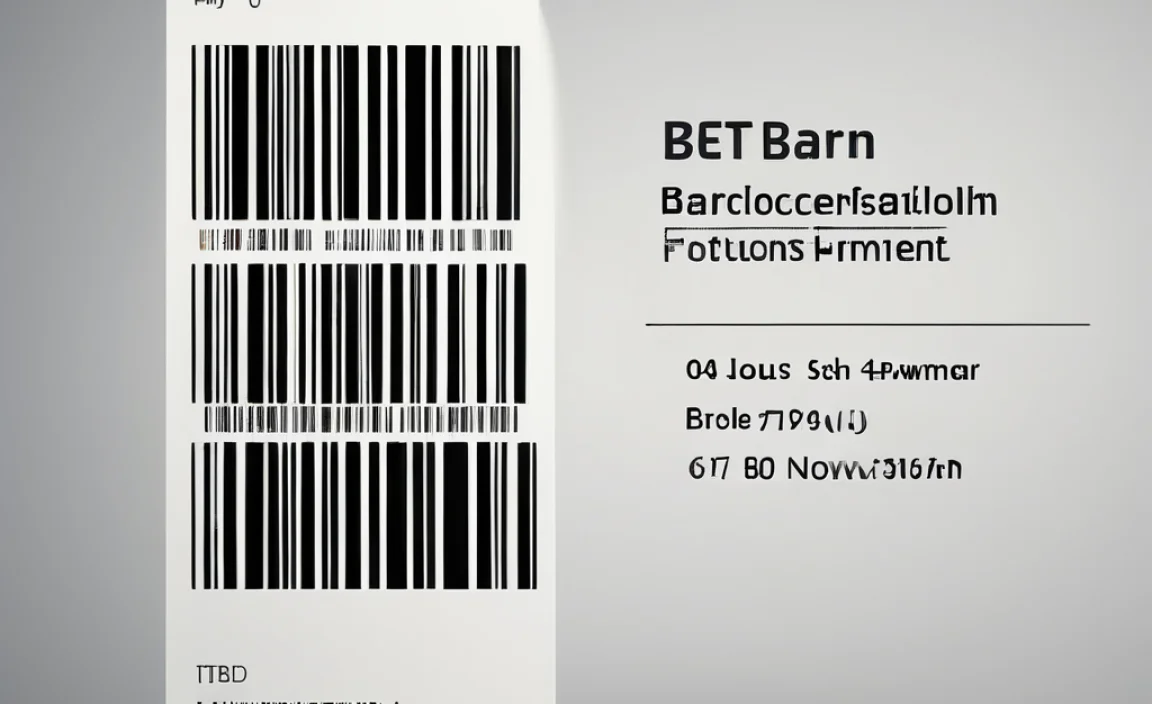
Have you ever wondered how stores keep track of their products? One way is through barcodes. Barcodes use lines and numbers to label items. But have you thought about the best barcode number font? This font helps machines read barcodes better.
Choosing the right barcode font is important. It makes sure the scanner reads the code correctly. Let’s explore why the best barcode number font is key for businesses.
Key Takeaways
- The right barcode font improves scanning accuracy.
- Many fonts exist, but some stand out more.
- A best barcode number font ensures fast data entry.
- Fonts like Code 128 are popular in stores.
- Choosing the best font saves time and money.
Understanding Barcode Fonts
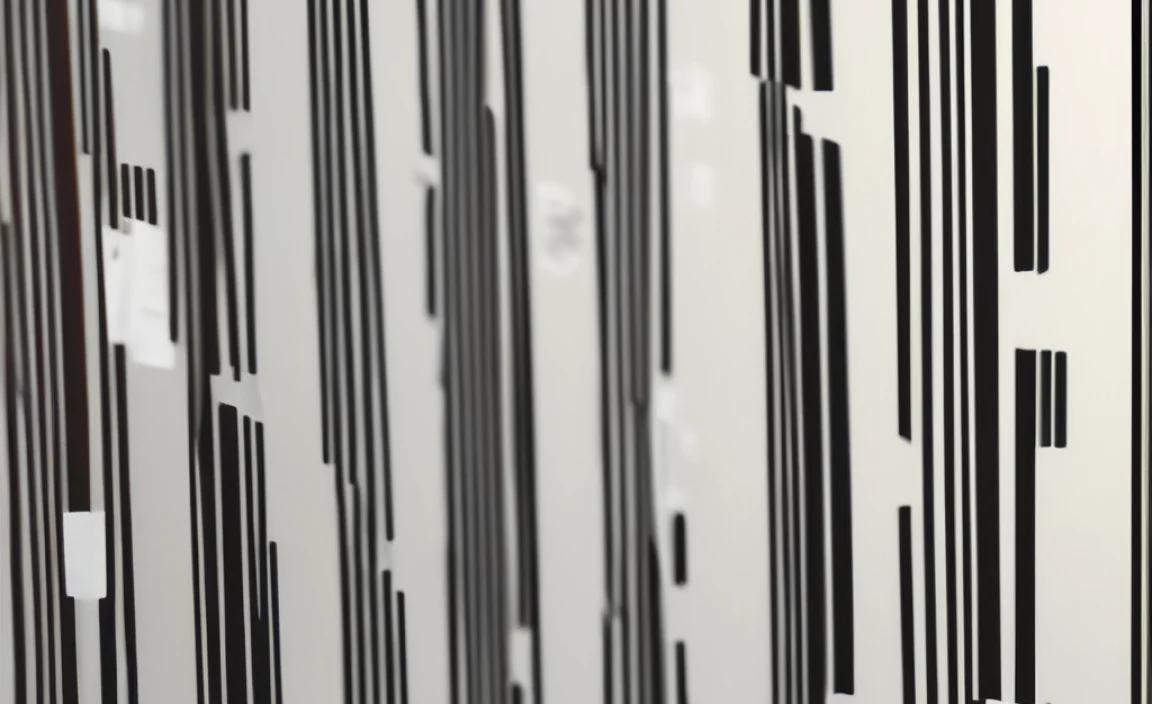
Barcodes are everywhere. They use special fonts that machines can read. These fonts look like a series of lines. Each line represents a number or letter. Picking the right font is crucial for accurate reading. If a barcode is unreadable, it can cause problems. For businesses, getting the best barcode number font is important. It ensures smooth operations. Barcodes need to be clear and legible.
- Barcodes use special fonts for machine reading.
- Fonts translate lines into numbers or letters.
- Clarity in fonts is crucial for accuracy.
- Unreadable barcodes cause business issues.
- Best fonts ensure smooth business operations.
Choosing the right barcode font helps avoid errors. It can also speed up the checkout process. When a scanner reads a barcode quickly, customers are happier. By using the best barcode number font, businesses can improve efficiency. This ultimately leads to better service for everyone involved.
Popular Barcode Fonts
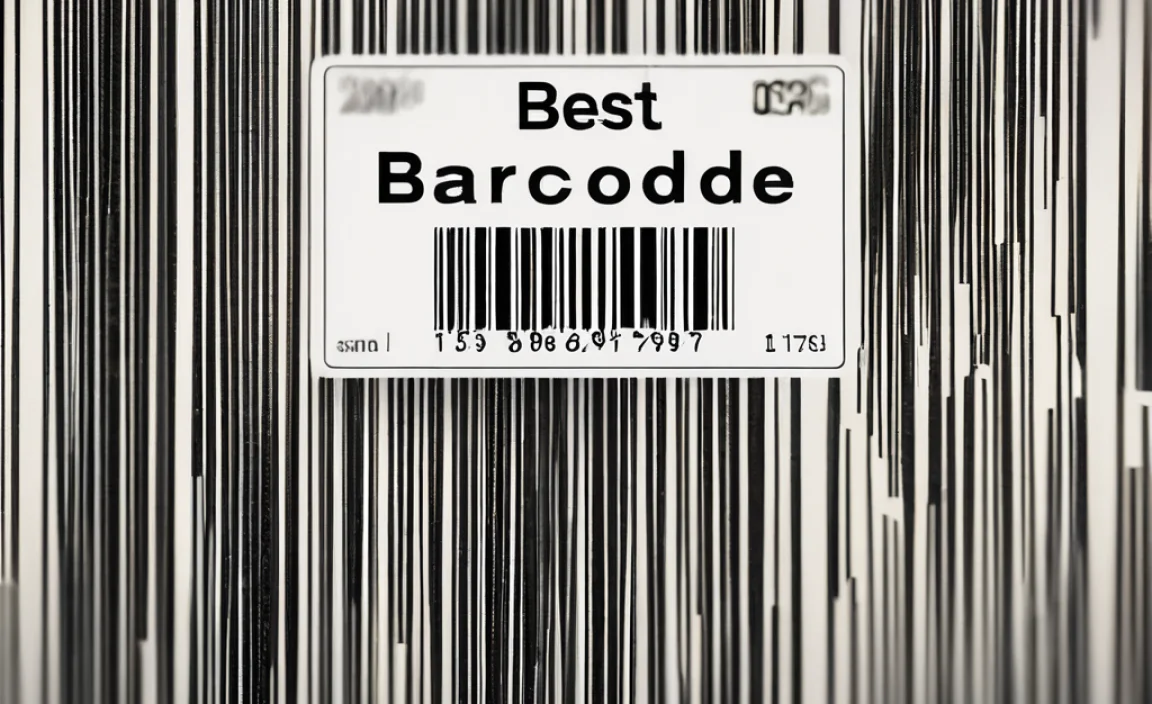
Barcode fonts come in many styles. Each style has its own use. Some are best for small items like candy. Others are for bigger items like books. A popular choice is Code 128. It’s used in many stores. This font is easy for machines to read. Another option is UPC-A, often found on groceries. Choosing the best barcode number font depends on the product and need.
- Barcode fonts vary by style and use.
- Code 128 is popular for versatility.
- UPC-A is common on grocery items.
- Fonts are chosen based on product size.
- Right font enhances readability.
For businesses, selecting the right font makes a huge difference. It ensures that their products are scanned correctly. This can prevent errors at the checkout. Using a best barcode number font like Code 128 could be the perfect choice for many items. It is also widely recognized and trusted in the industry.
Code 128: The Versatile Font
Why is Code 128 so popular? This font can encode all kinds of data. From numbers to letters, it handles everything. Imagine a store with many different items. Code 128 can label everything easily. Whether it’s a book or a bag of chips, this font works well. Its versatility makes it a top choice for many businesses.
UPC-A: A Grocery Store Favorite
Have you ever looked at a food package’s barcode? That’s likely a UPC-A font. This font is designed for smaller items. It helps in tracking groceries easily. UPC-A is compact but powerful. It’s the go-to choice for supermarkets. It helps manage inventory efficiently. Next time you shop, peek at the barcode on your cereal box!
Code 39: For Larger Products
Code 39 is another great barcode font. It’s perfect for larger items. Imagine a furniture store. They have big items that need tracking. Code 39 can label these items effectively. It supports both numbers and letters. This makes it a flexible choice. Businesses dealing with large products often choose Code 39.
Why Choosing The Right Font Matters
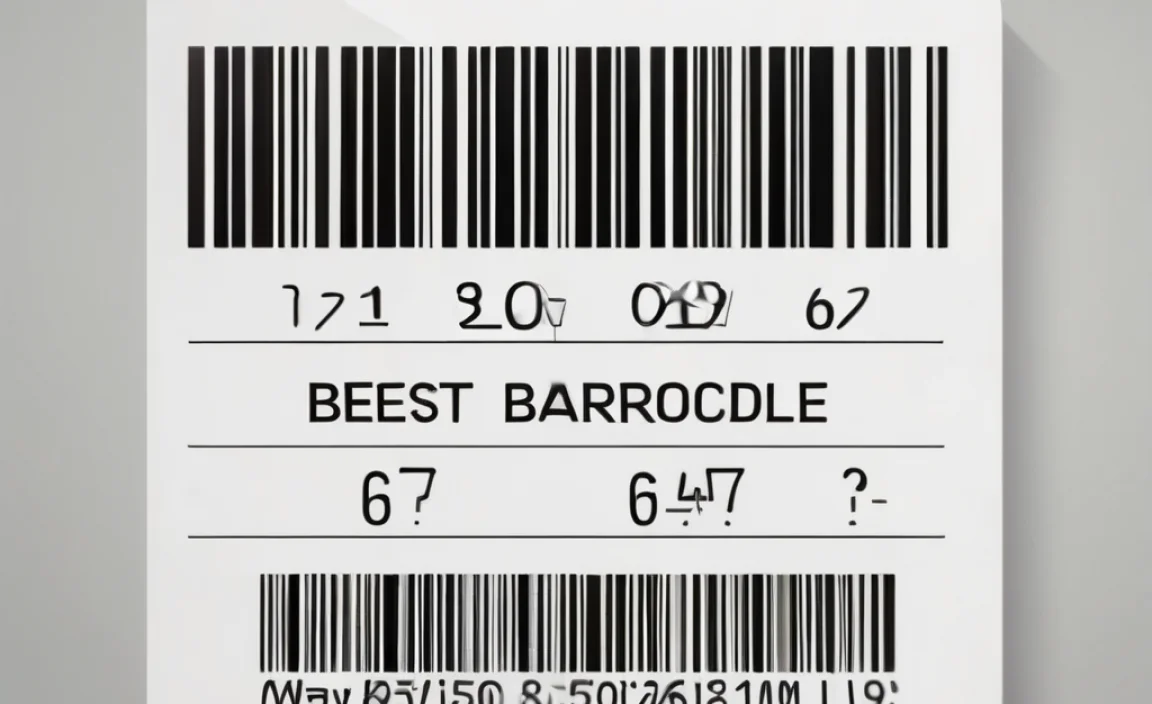
Picking the right font is more than just looks. It affects the whole business process. A well-chosen font reduces errors. It also speeds up the checkout line. Imagine a store with slow scanners. Customers would get frustrated. By using the best barcode number font, stores can avoid these issues. A fast, accurate scanner keeps everyone happy.
- Right font affects business efficiency.
- Well-chosen fonts reduce scanning errors.
- Fast fonts speed up checkout lines.
- Accurate fonts improve customer experience.
- Choosing wisely avoids business problems.
Investing in a good barcode font can save money. It cuts down on wasted time and resources. Fast and accurate scanning means fewer mistakes. Businesses should consider their specific needs. The best barcode number font will depend on their products and operations.
Comparing Top Barcode Fonts
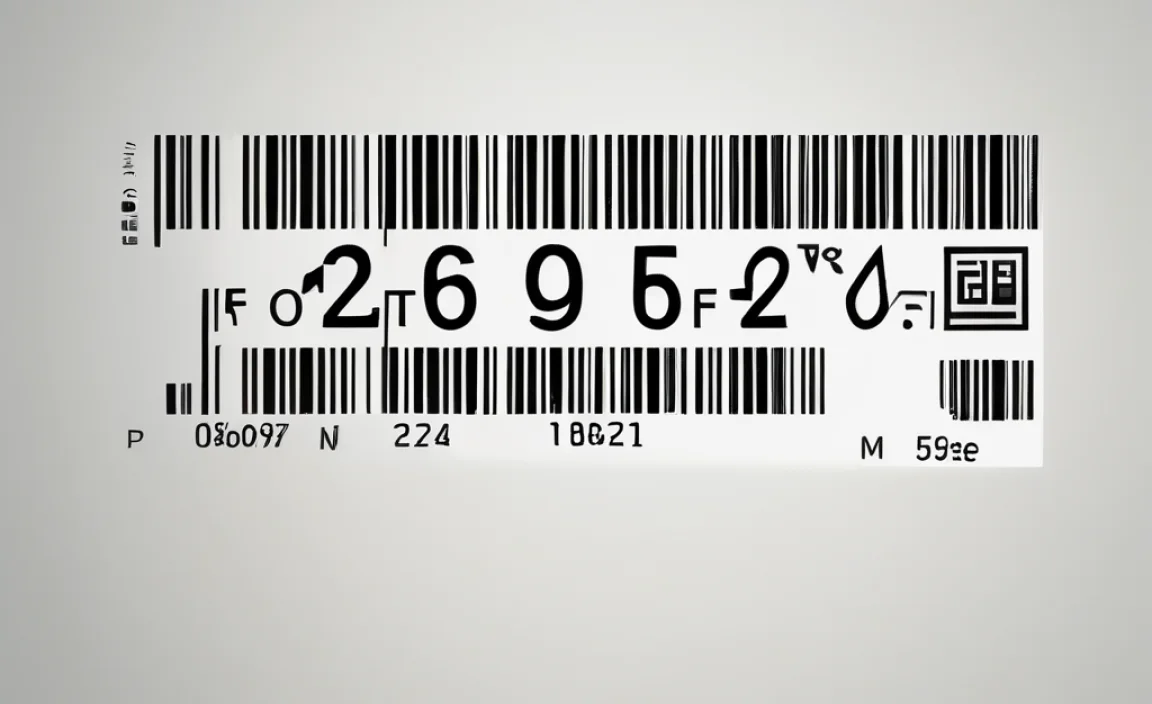
Not all barcode fonts are the same. They have different strengths and weaknesses. For instance, Code 128 is great for variety. UPC-A is compact, ideal for small items. Code 39 is perfect for large products. Comparing these fonts helps businesses decide. They want to choose the best barcode number font for their needs. Here’s a table showing some key differences.
Question: How do special characters help in barcodes?
Answer: Special characters can hold extra data. This provides more information on the barcode. It helps in specific tracking needs. Businesses like libraries or apparel stores find this useful. Special characters enhance the usefulness of best barcode number font.